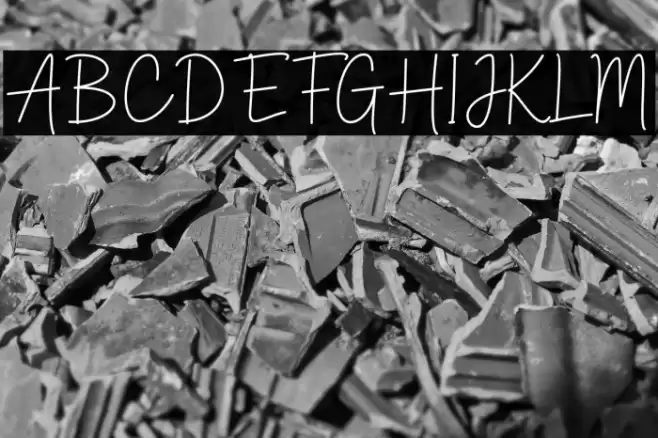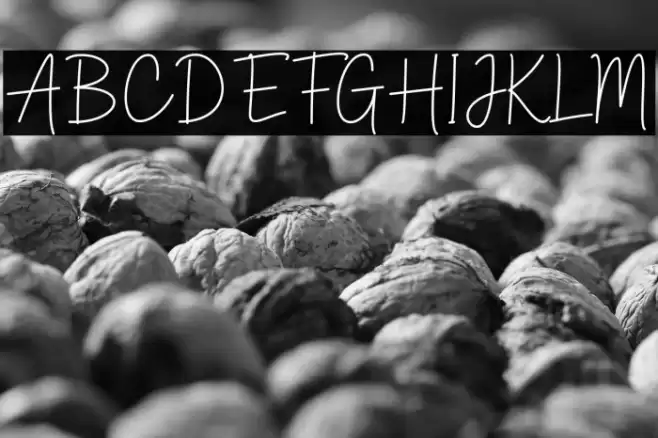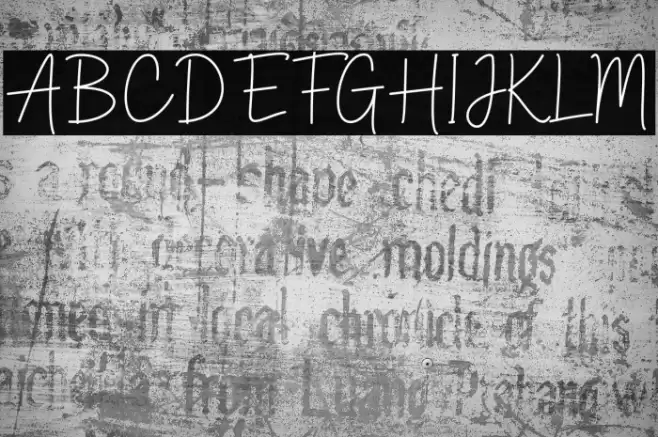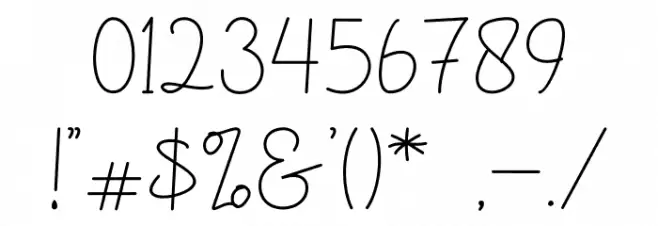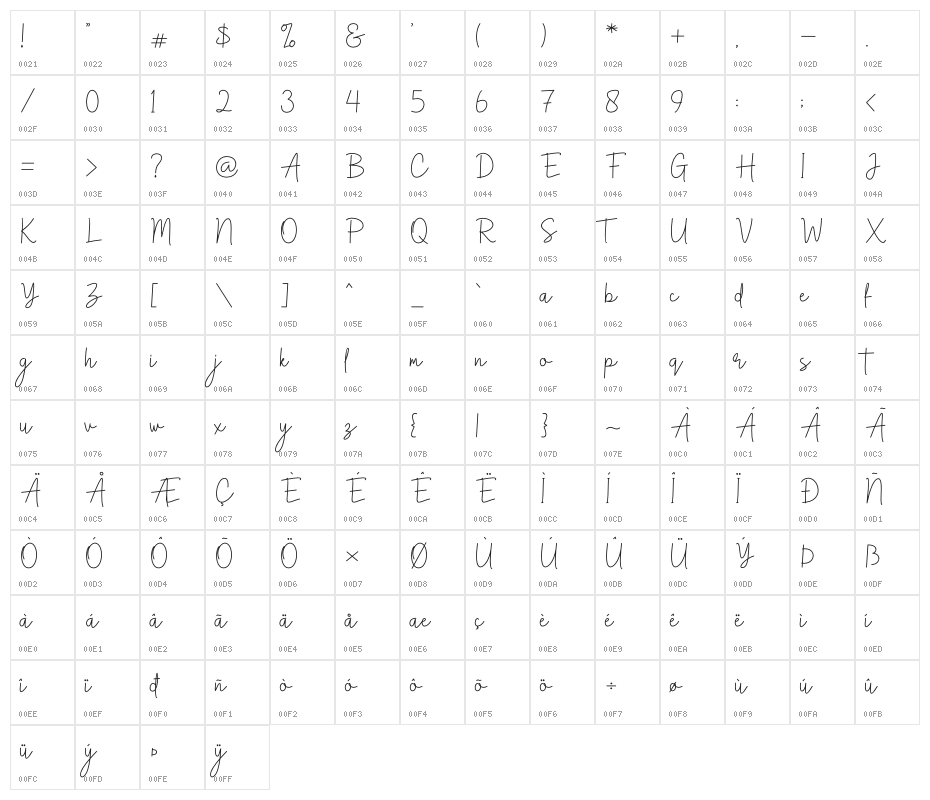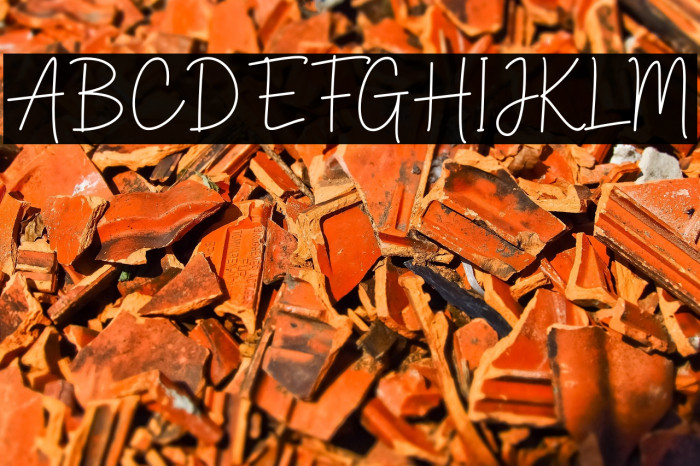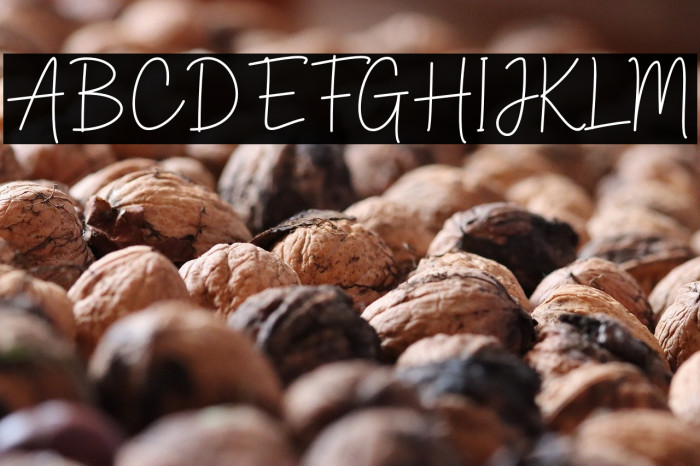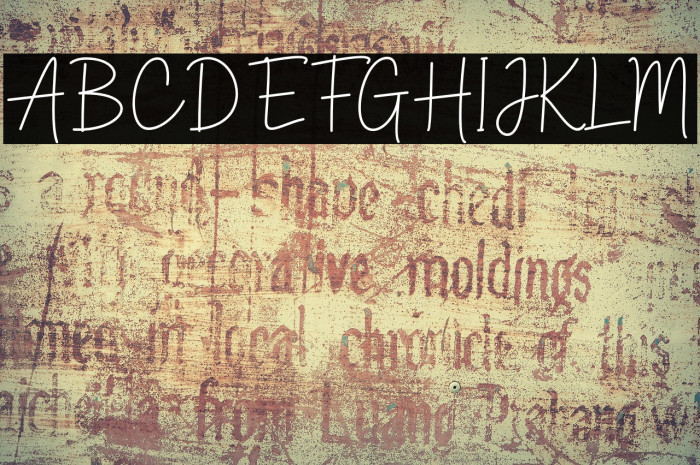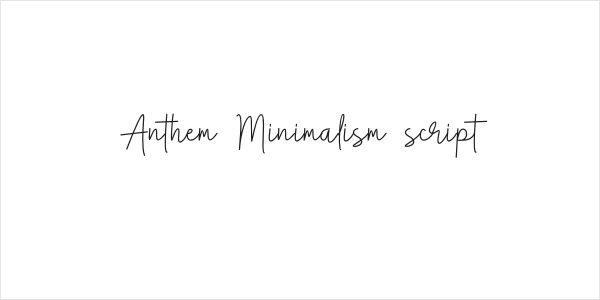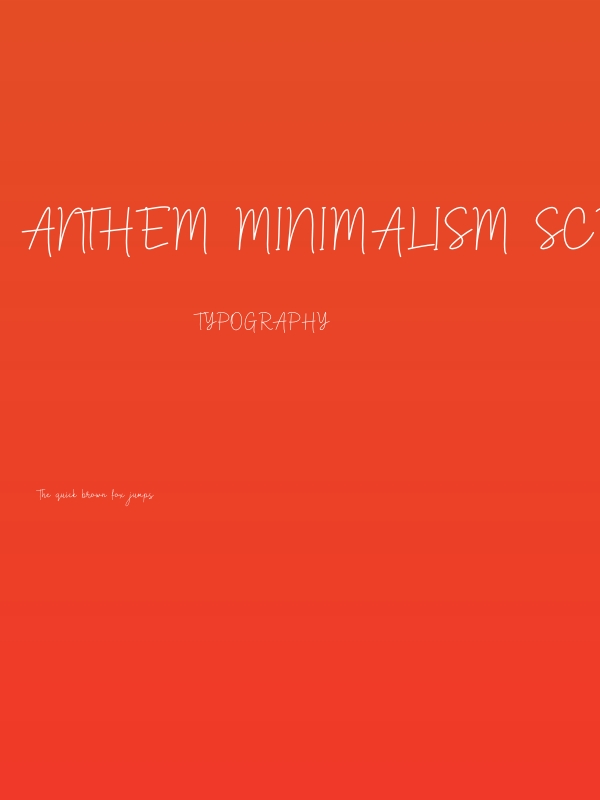
Anthem Minimalism script Font
Anthem Minimalism script Description
This font features a clean and elegant script style with a minimalistic approach. The uppercase letters are tall and slender, with a slight slant that adds a touch of sophistication. The lowercase letters are fluid and connected, creating a seamless flow that is both modern and timeless. The numerals are consistent with the overall style, maintaining the same slender and slightly slanted appearance. Special characters are thoughtfully designed to match the aesthetic, ensuring a cohesive look across all text elements. This font's simplicity and elegance make it versatile for various design applications.
A minimalistic and elegant script font with a modern touch from Uncategorized fonts.
- Proposed Projects: Ideal for wedding invitations, branding, social media graphics, and elegant stationery.
- Use Case: Logos, Invitations, Social Media Graphics